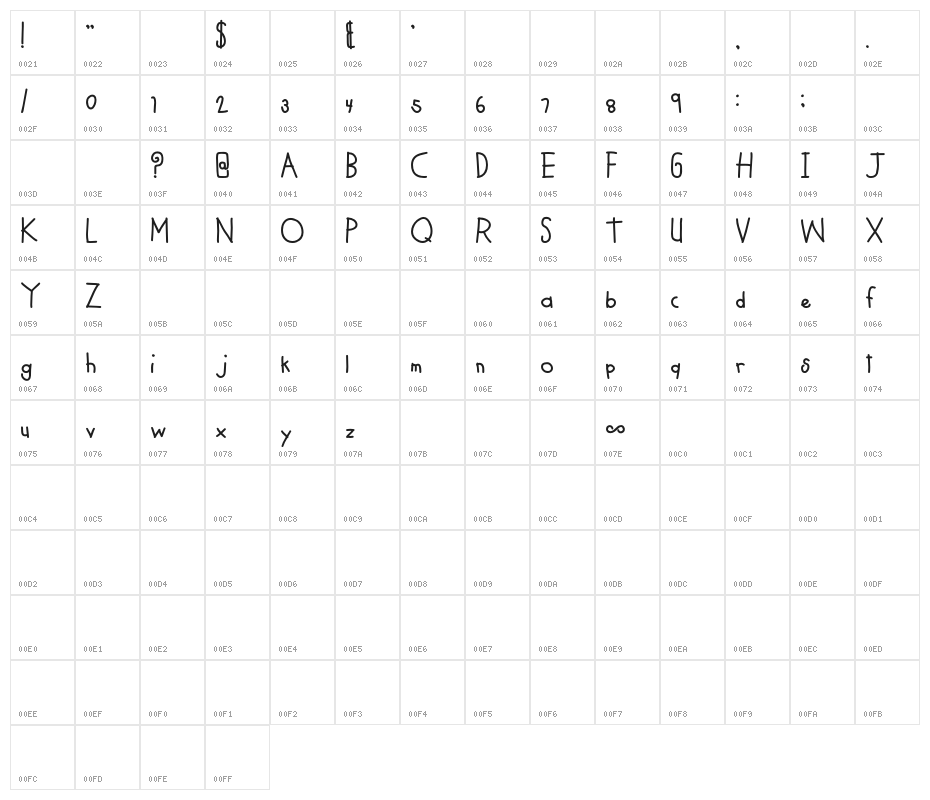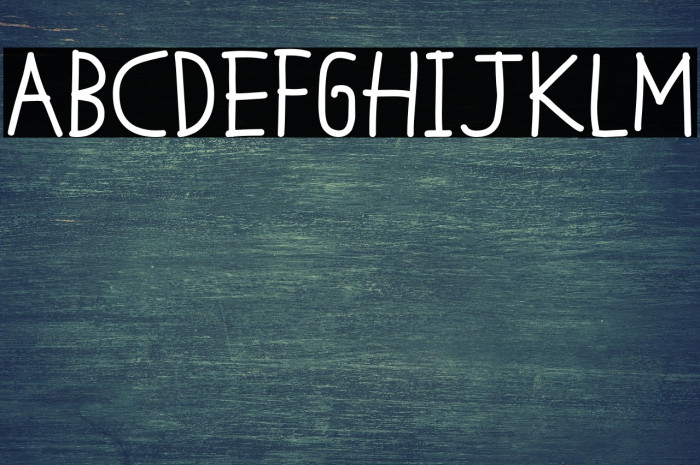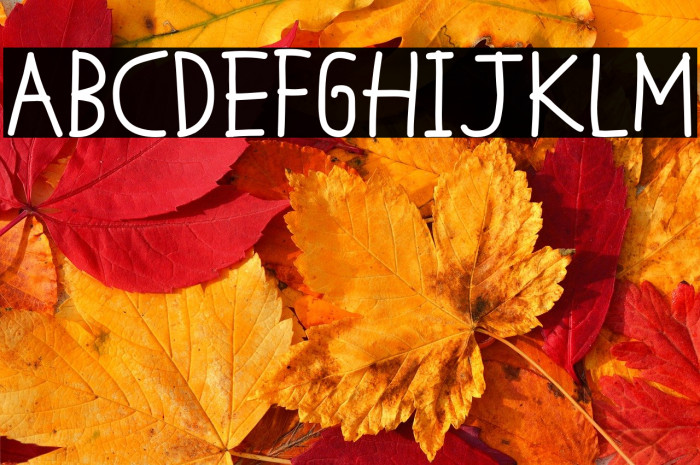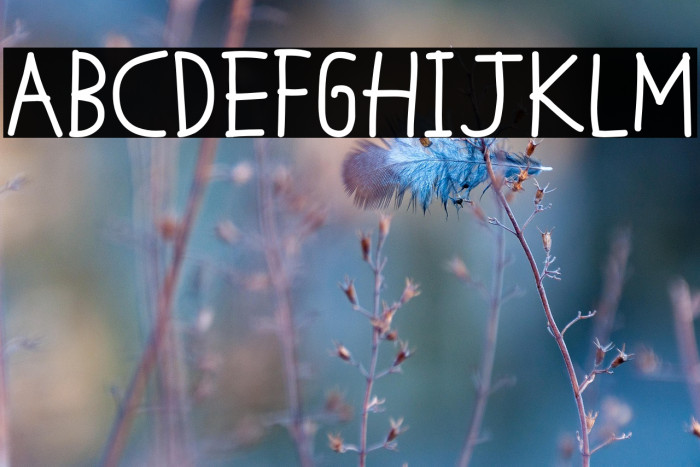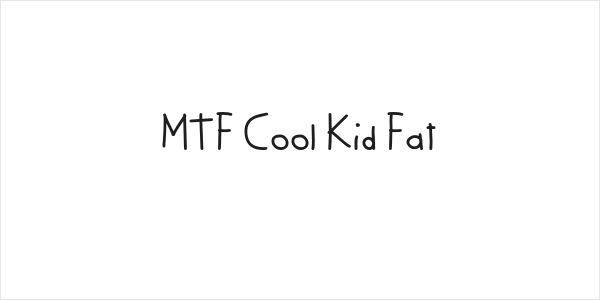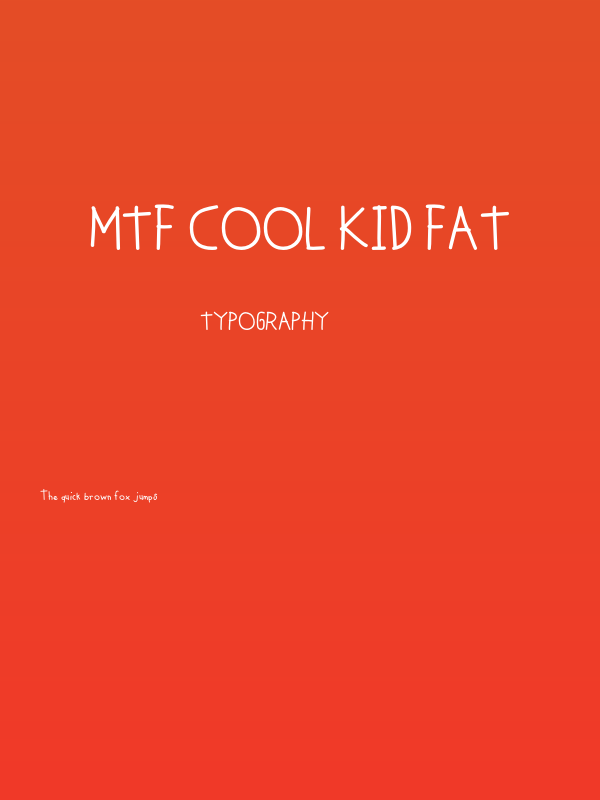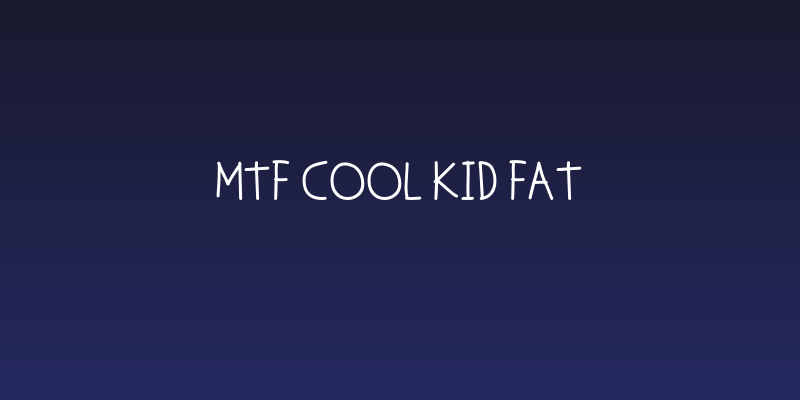
MTF Cool Kid Fat Font
MTF Cool Kid Fat Description
This playful and whimsical font features a handwritten style with a casual and friendly appearance. The letters are slightly irregular, giving it a unique and personal touch. The uppercase characters are tall and narrow, while the lowercase letters are more rounded and compact. The numbers and special characters maintain the same playful aesthetic, making it versatile for various uses. The overall look is informal and approachable, ideal for projects that require a fun and engaging tone.
| Proposed Projects | Perfect for children's books, greeting cards, playful branding, and informal invitations. |